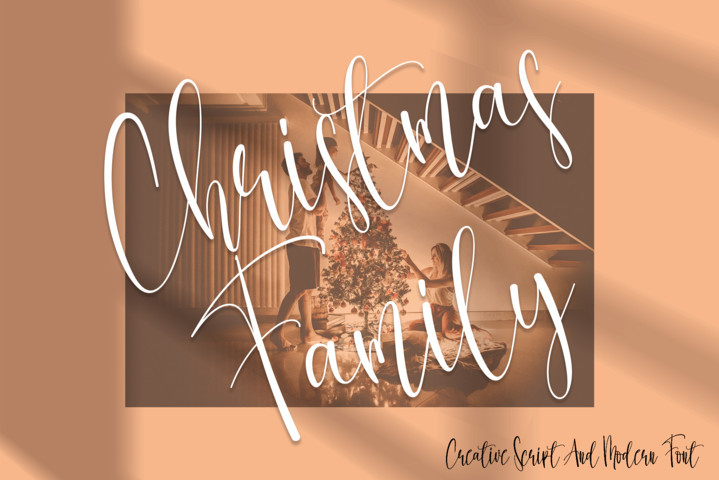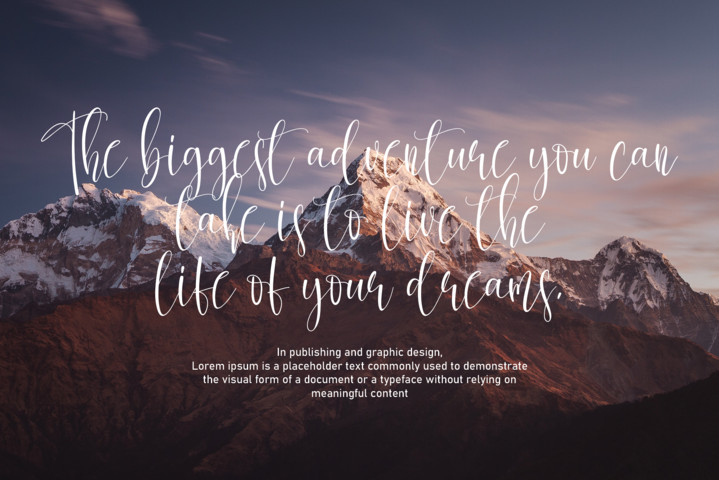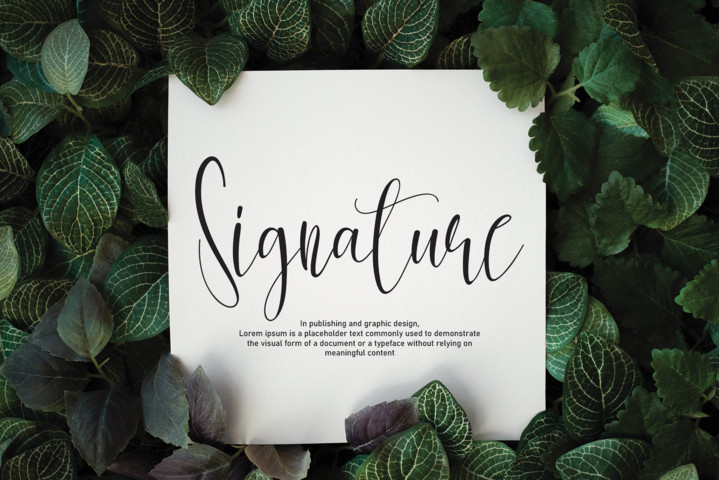
Mirandany Calligraphy Font
Mirandany is a modern and romantic handwritten font. It looks stunning on wedding invitations, thank you cards, quotes, greeting cards, logos, business cards and every other design which needs a handwritten touch. It features a varying baseline, smooth lines, gorgeous glyphs and stunning alternates.